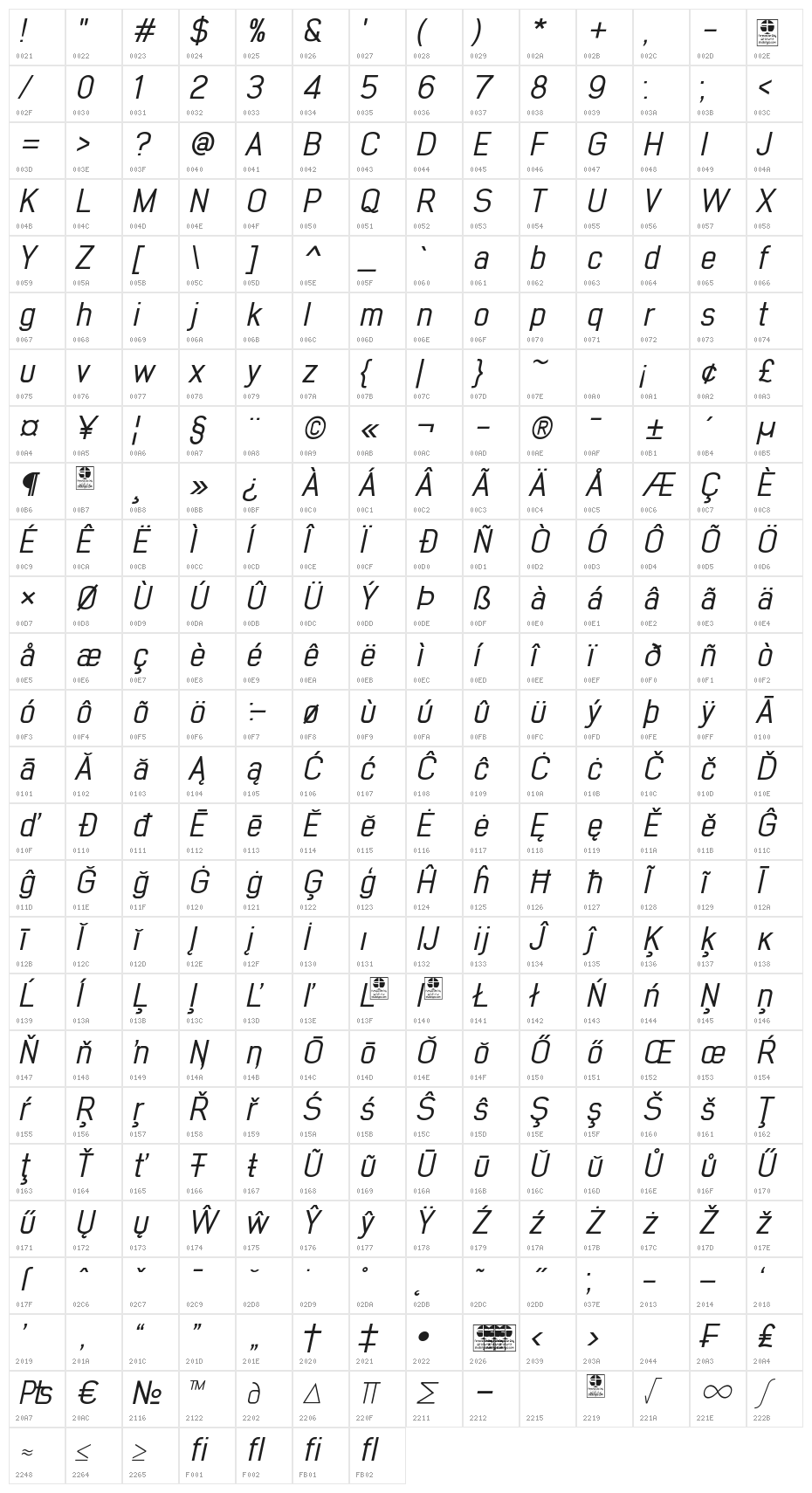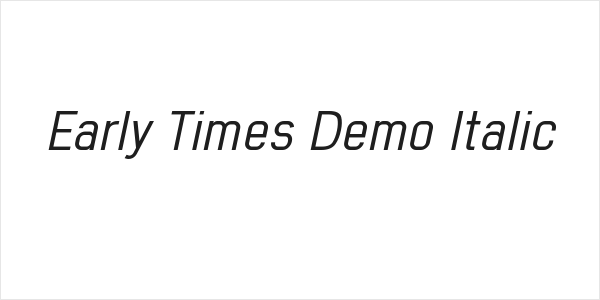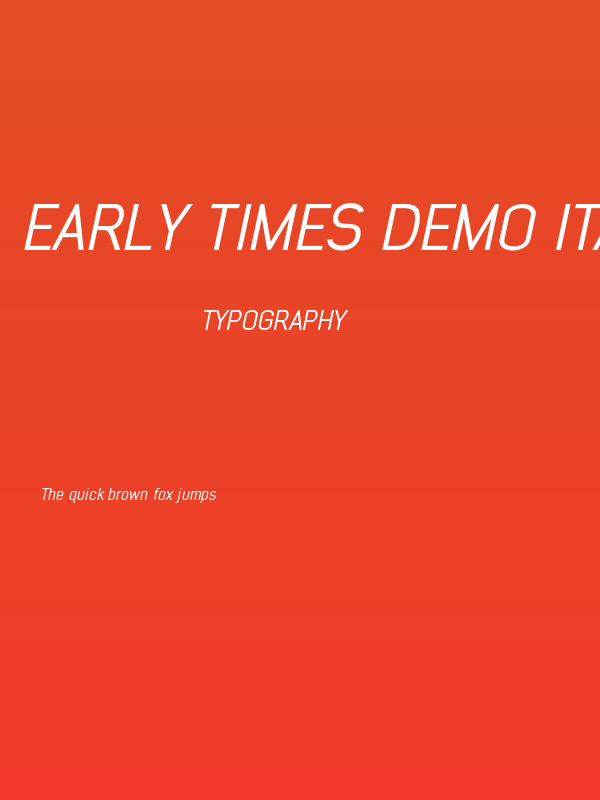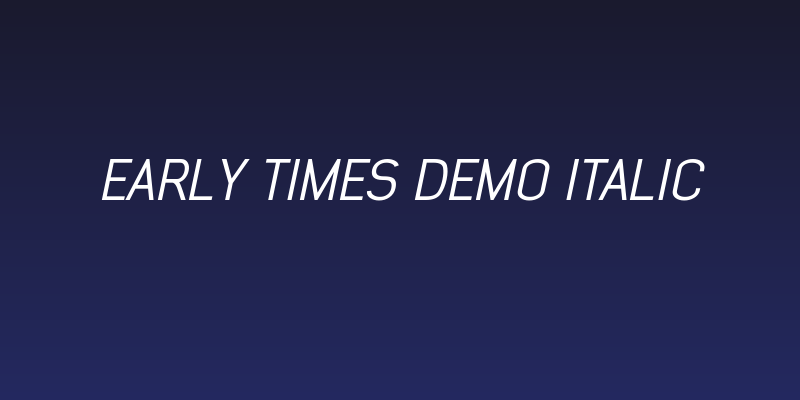
Early Times Demo Italic Font
Early Times Demo Italic Description
This font features a sleek, italicized design that exudes a modern and dynamic feel. The characters are slightly slanted, giving a sense of motion and elegance. The strokes are clean and consistent, with a medium contrast that adds to its readability. The uppercase and lowercase letters maintain a uniform style, while the numerals are clear and straightforward. Special characters are well-integrated, ensuring versatility in various applications. Overall, this font combines a contemporary aesthetic with functional design, making it suitable for a wide range of uses.
| Use Case | Headlines, Logos, Editorials |
| Proposed Projects | Ideal for branding, advertising, and editorial design projects that require a modern and dynamic touch. |